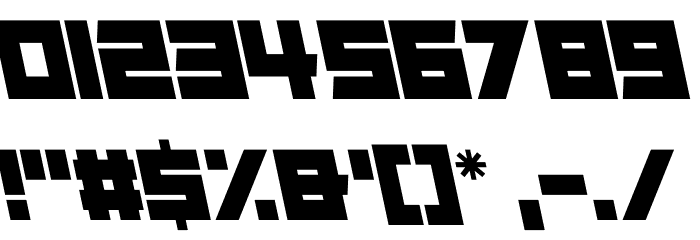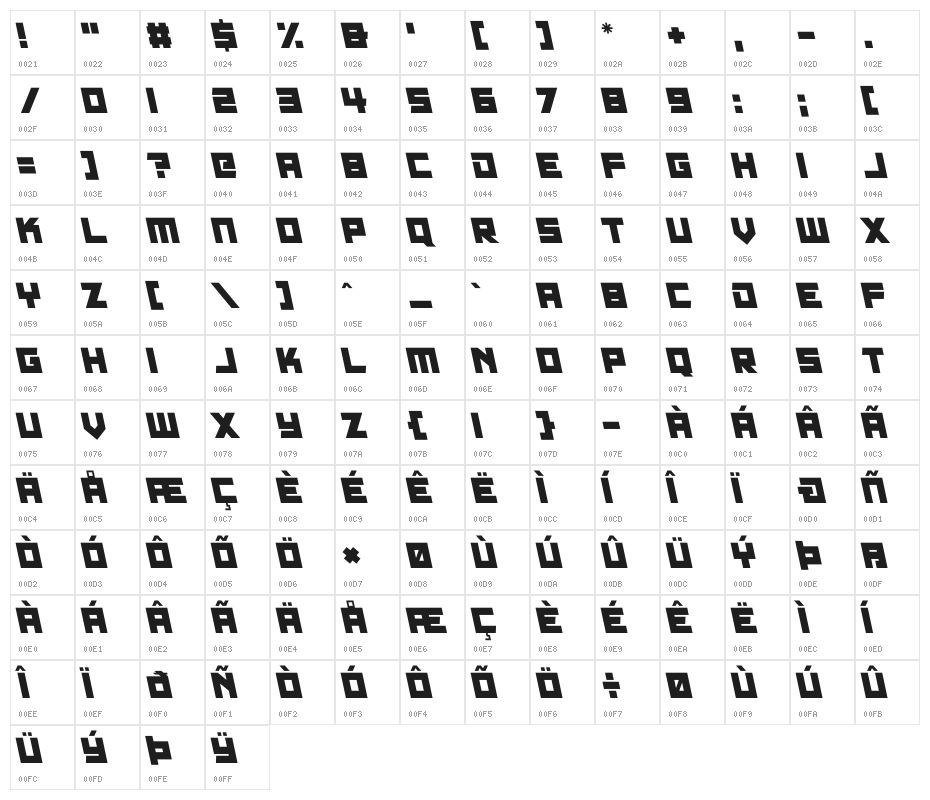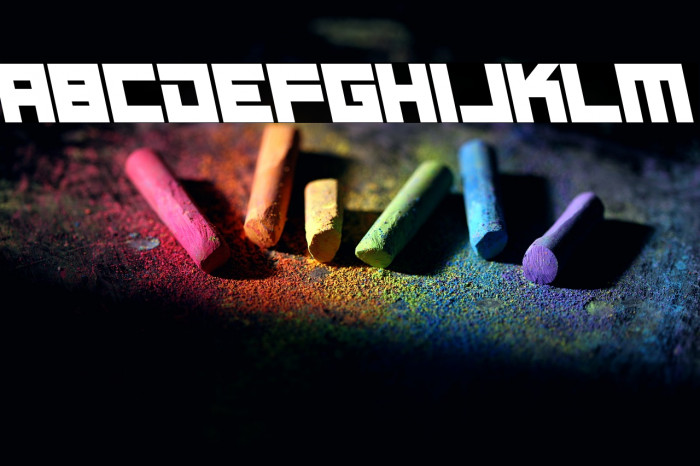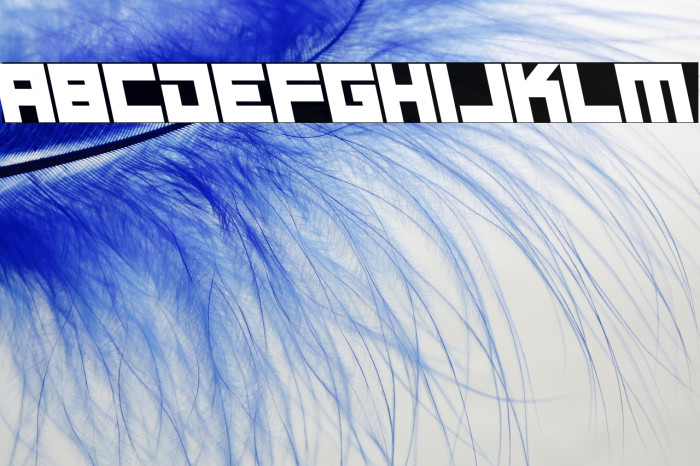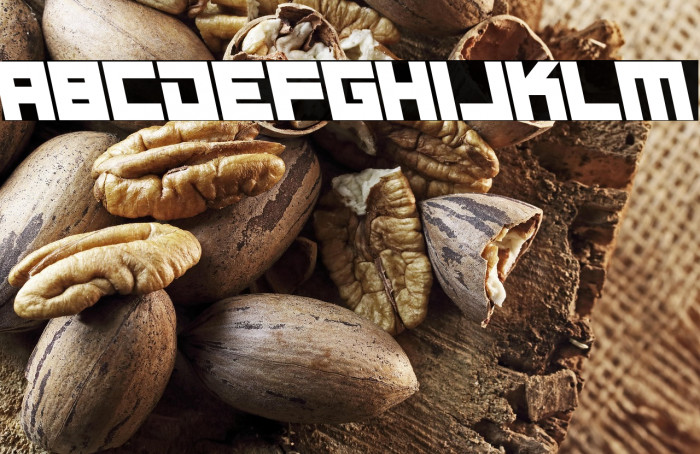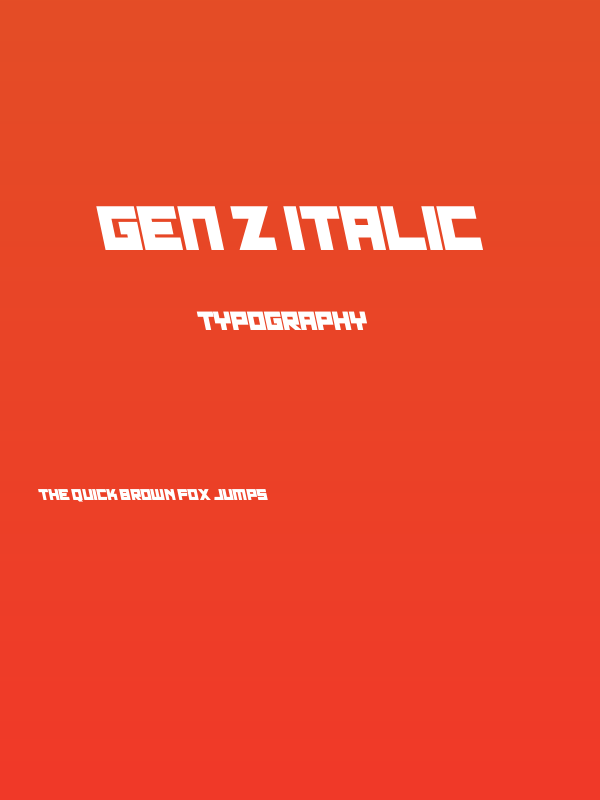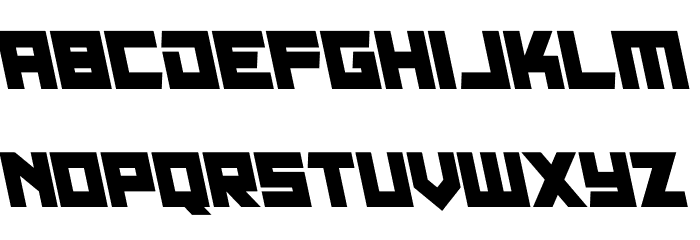
Gen Z Italic Font
Gen Z Italic Description
This font features a bold and dynamic style with a futuristic and angular design. The characters are sharply cut with a distinct slant, giving them an italicized appearance. The uppercase letters are consistent in height, while the lowercase letters maintain a similar angular style. The numbers are bold and match the overall geometric theme. Special characters are also designed with the same sharp edges, ensuring uniformity across the font. The overall look is modern and edgy, making it suitable for projects that require a strong visual impact.
| Proposed Projects | Ideal for branding, posters, video game graphics, and any project needing a modern, edgy look. |